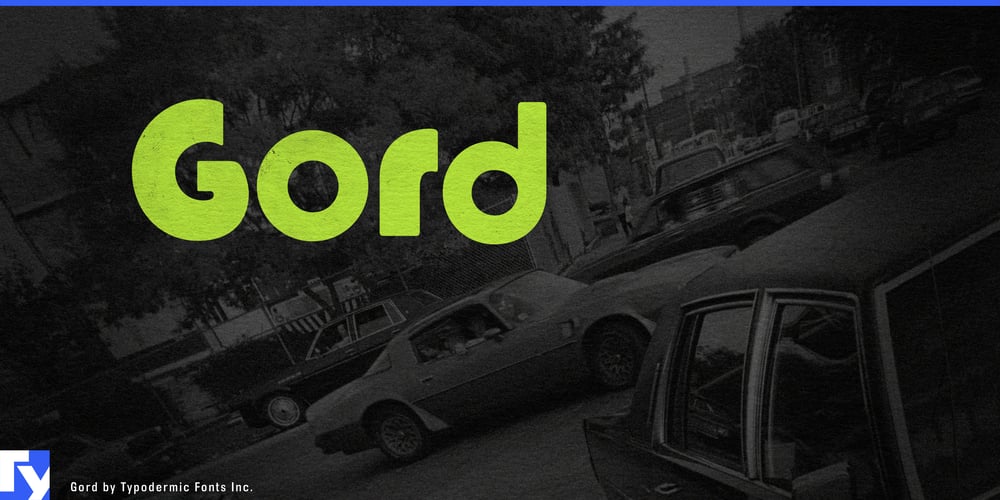
Gord Font Family was designed by Ray Larabie and published by Typodermic. Gord contains 1 styles and family package options. Buckle up and prepare for a typographic trip with Gord, a font that doesn’t just break the rules—it throws them out the window of a psychedelic Ford Pinto. This isn’t just a typeface; it’s a time machine disguised as letterforms, ready to catapult your designs straight into the heart of the 1970s.Gord is what happens when a disco ball collides with the alphabet. It’s a glorious mishmash of styles, a typographic gumbo that shouldn’t work but somehow does—spectacularly. Each character is a celebration of imperfection, a rebellion against the sleek and the streamlined. It’s the typeface equivalent of platform shoes and a polyester suit: so outrageous it demands attention. But don’t be fooled by its seemingly haphazard appearance. Gord is intentionally, meticulously crafted chaos. Its uneven shapes and mismatched curves are carefully orchestrated to create a visual rhythm that’s as infectious as a funk bassline. It’s the kind of typeface that doesn’t just sit on the page—it grooves.This font isn’t just for reading; it’s for experiencing. Use Gord, and watch as ordinary words transform into extraordinary visual adventures. It’s perfect for album covers that scream “vinyl revival,” posters that pop with retro energy, or branding that dares to be delightfully different. Gord doesn’t whisper; it bellows through a megaphone wrapped in shaggy carpeting. But Gord isn’t just about looking back—it’s about bringing the past into the future. Its support for a vast array of Latin-based European languages means this funky phonetic phenomenon is ready to boogie across borders. From the discotheques of Paris to the beach parties of Rio, Gord speaks the universal language of groove.In a world of safe, sanitized design, Gord is your ticket to the wild side. It’s for designers who understand that sometimes, to make a real impact, you need to embrace the unconventional, the ugly-beautiful, the gloriously grotesque.